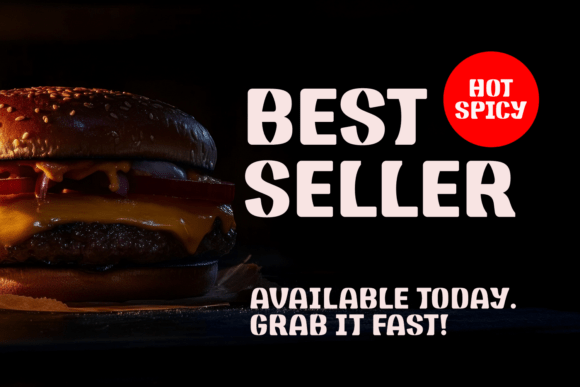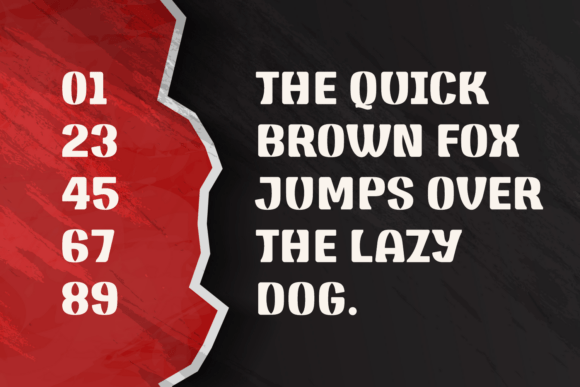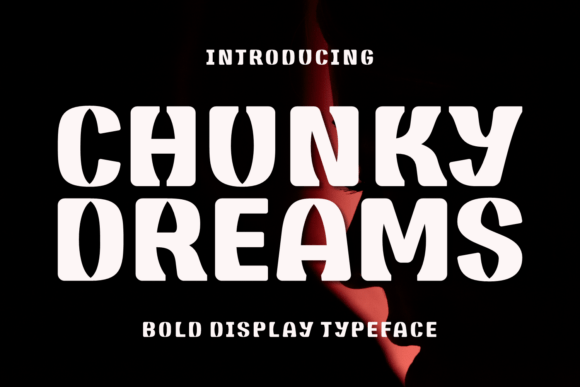
Introducing Chunky Dreams Font: The Ultimate Display Font for Creative Projects
Are you looking for a font that can add a touch of warmth and authenticity to your designs? Look no further than Chunky Dreams Font, a cool, bold, and whimsical display font that’s perfect for a wide range of creative projects. In this article, we’ll take a closer look at the features and benefits of Chunky Dreams Font, and explore how it can elevate your designs to the next level.
What is Chunky Dreams Font?
Chunky Dreams Font is a unique and eye-catching display font that’s designed to bring a touch of personality and charm to your designs. With its bold and chunky letterforms, this font is perfect for creating eye-catching headlines, titles, and text that demands attention. But what really sets Chunky Dreams Font apart is its whimsical and playful feel, which adds a touch of warmth and authenticity to any design.
Key Features of Chunky Dreams Font
• Bold and Chunky Letterforms: Chunky Dreams Font features bold and chunky letterforms that are perfect for creating eye-catching headlines and titles.
• Whimsical and Playful Feel: The font has a whimsical and playful feel that adds a touch of warmth and authenticity to any design.
• Perfect for Display Text: Chunky Dreams Font is designed specifically for display text, making it perfect for headlines, titles, and other text that needs to stand out.
• Easy to Read: Despite its bold and chunky letterforms, Chunky Dreams Font is surprisingly easy to read, making it perfect for use in a wide range of designs.
Uses for Chunky Dreams Font
So, what can you use Chunky Dreams Font for? The possibilities are endless! Here are a few ideas to get you started:
• Headlines and Titles: Use Chunky Dreams Font to create eye-catching headlines and titles that demand attention.
• T-Shirts and Merchandise: Add a touch of personality and charm to your t-shirts and merchandise with Chunky Dreams Font.
• Crafting and Scrapbooking: Use Chunky Dreams Font to add a touch of whimsy and playfulness to your crafting and scrapbooking projects.
• Stickers and Labels: Create eye-catching stickers and labels with Chunky Dreams Font that are sure to stand out.
Why Choose Chunky Dreams Font?
So, why choose Chunky Dreams Font for your next design project? Here are just a few reasons:
• Unique and Eye-Catching: Chunky Dreams Font is a unique and eye-catching font that’s sure to make your designs stand out.
• Versatile: Chunky Dreams Font can be used in a wide range of designs, from headlines and titles to t-shirts and merchandise.
In conclusion, Chunky Dreams Font is a cool, bold, and whimsical display font that’s perfect for adding a touch of warmth and authenticity to your designs. With its bold and chunky letterforms, whimsical and playful feel, and ease of use, this font is perfect for a wide range of creative projects. Whether you’re a designer, crafter, or DIY enthusiast, Chunky Dreams Font is sure to become a favorite in your font collection.